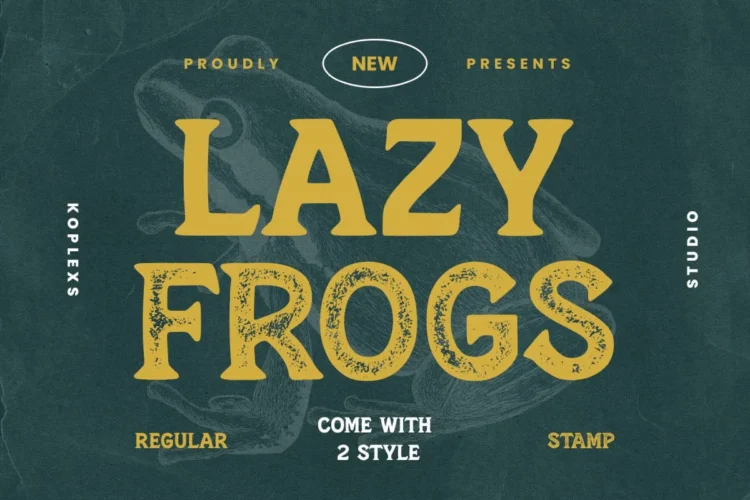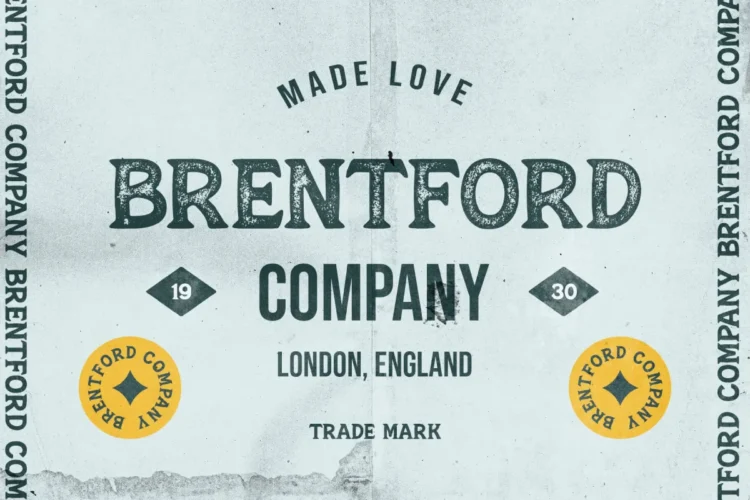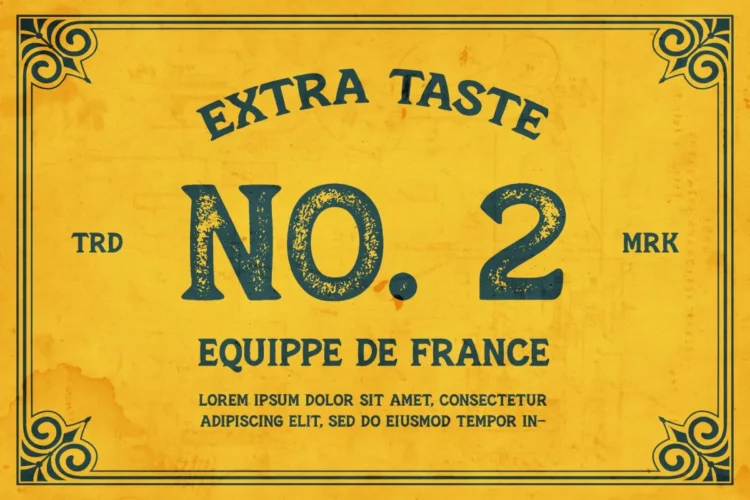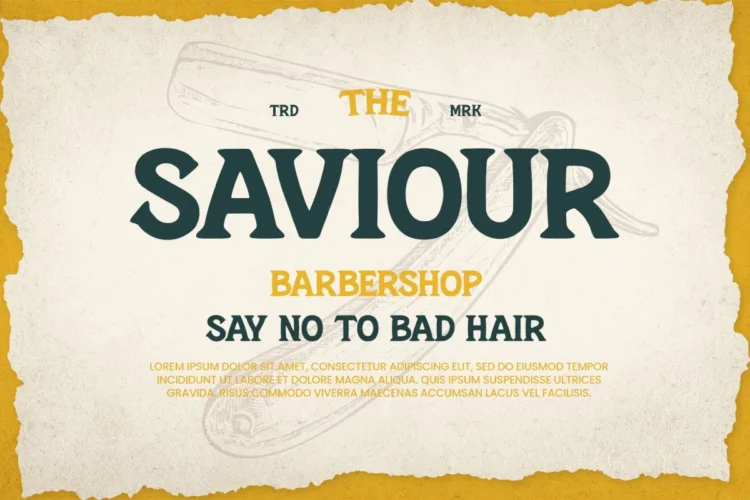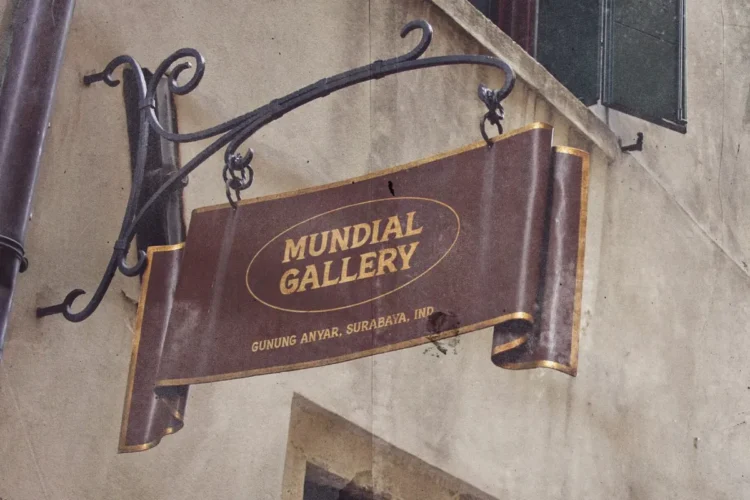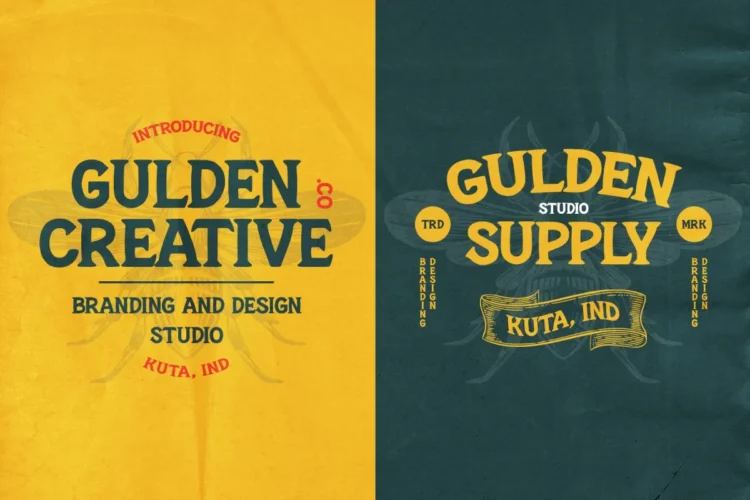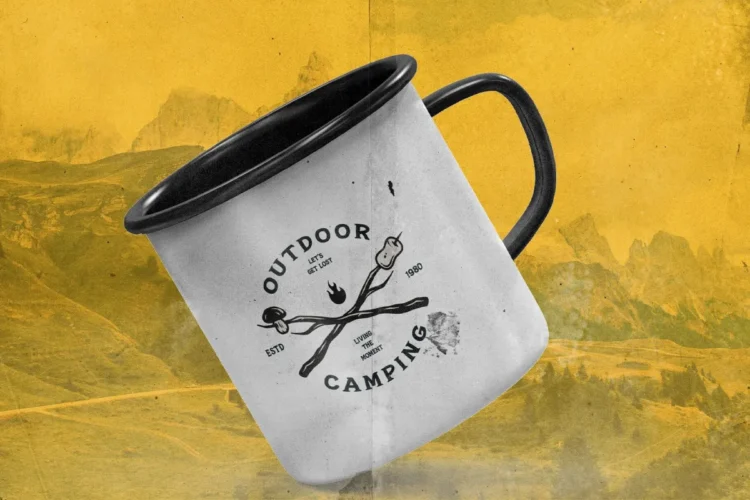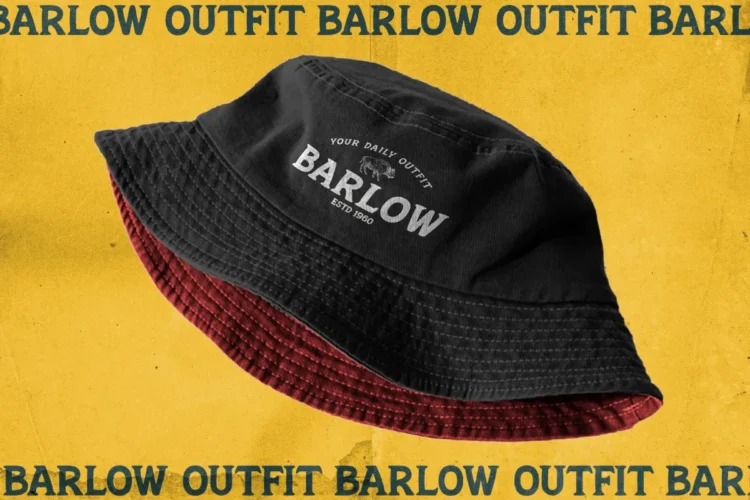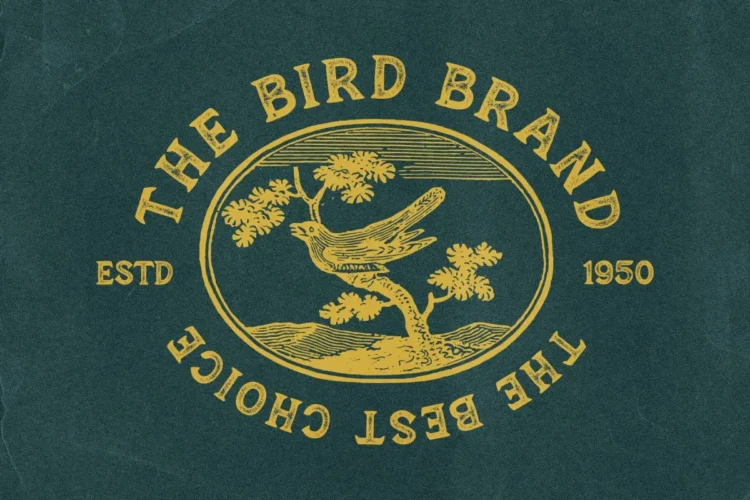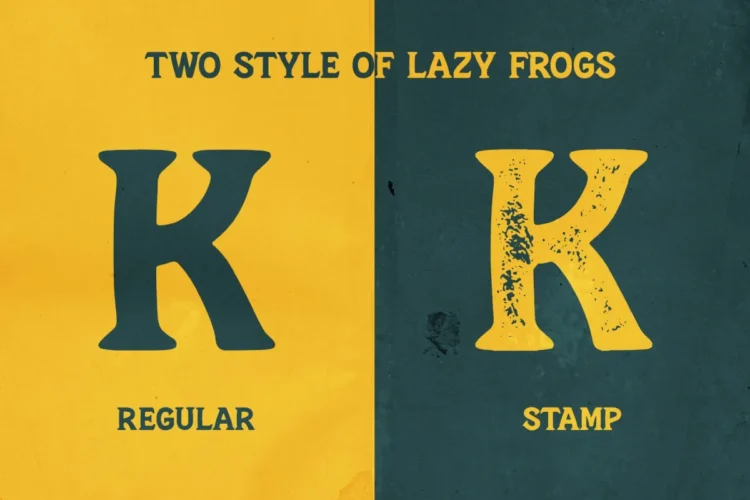
Lazy Frogs Font – Vintage Serif Font with Retro Texture and Stamp Style for Branding & Adventure Design
Introducing Lazy Frogs Font, a beautifully crafted vintage font with a unique retro texture that blends old-school charm with modern flair. This serif font comes in two distinctive styles: Regular and Stamp, giving you full creative flexibility for both clean and textured looks.
Designed for designers and creators who love nostalgic aesthetics, Lazy Frogs Font is perfect as a branding font, headline font, or logo font. Its classic curves and bold forms make it ideal for creating retro posters, vintage labels, adventure branding, or packaging designs that demand attention.
The subtle imperfections and stamp-style texture give every project an authentic, handcrafted touch perfect for coffee brands, apparel, barbershops, outdoor gear, or creative studios. Whether you’re designing for digital or print, Lazy Frogs Font brings warmth, personality, and timeless appeal.
Lazy Frogs Font is versatile and works beautifully for :
Logo design and brand identity
Product packaging & labeling
Posters and flyers
Adventure gear branding
Vintage barbershop or coffee shop designs
Apparel design and merch
Editorial headlines and social media graphics
Lazy Frogs Font Features:
2 Font Styles: Regular & Stamp
Authentic texture font with handcrafted retro feel
Strong serif style for clear readability and impact
Perfect balance between vintage and modern design aesthetics
Works great for branding, logos, headings, labels, signage, advertising, and editorial layouts
Bring your next creative project to life with Lazy Frogs Font — where vintage charm meets modern design precision.